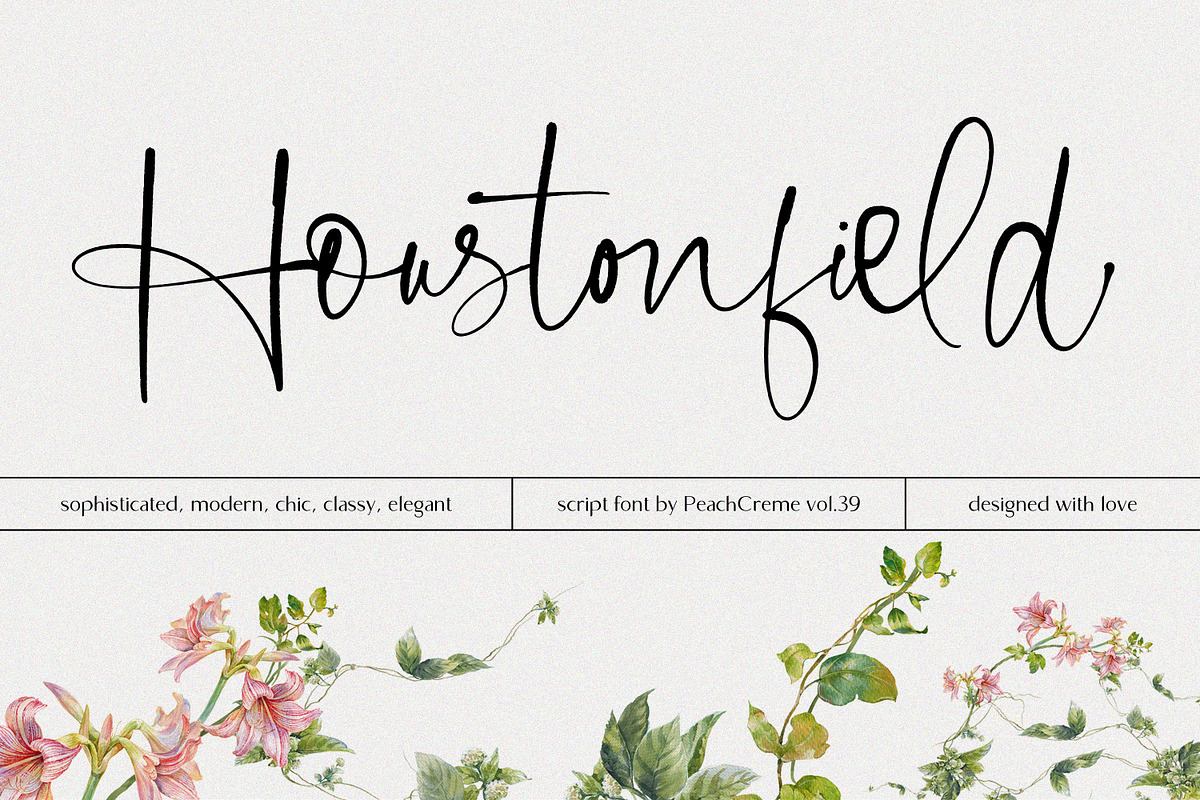
Houstonfield // Modern Script Font Free Download
The Houstonfield // Modern Script Font Free Download is a sleek and stylish typeface that blends the elegance of script lettering with a fresh, contemporary feel. Ideal for branding, fashion blogs, wedding invitations, product packaging, and signature-style logos, Houstonfield brings a modern sophistication to your design work.
With flowing strokes, refined curves, and a smooth handwritten aesthetic, this font captures a natural and luxurious vibe. It comes packed with ligatures, alternates, and multilingual support—giving designers full creative freedom to personalize their typography effortlessly.